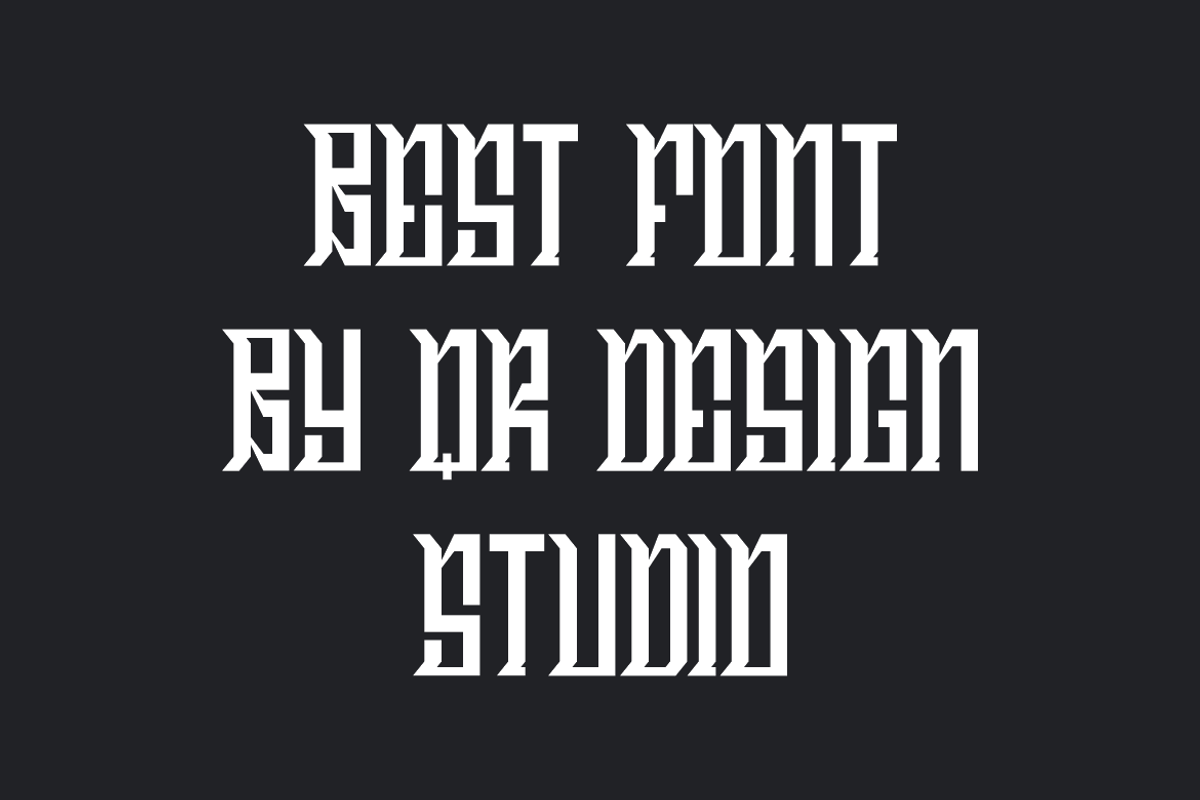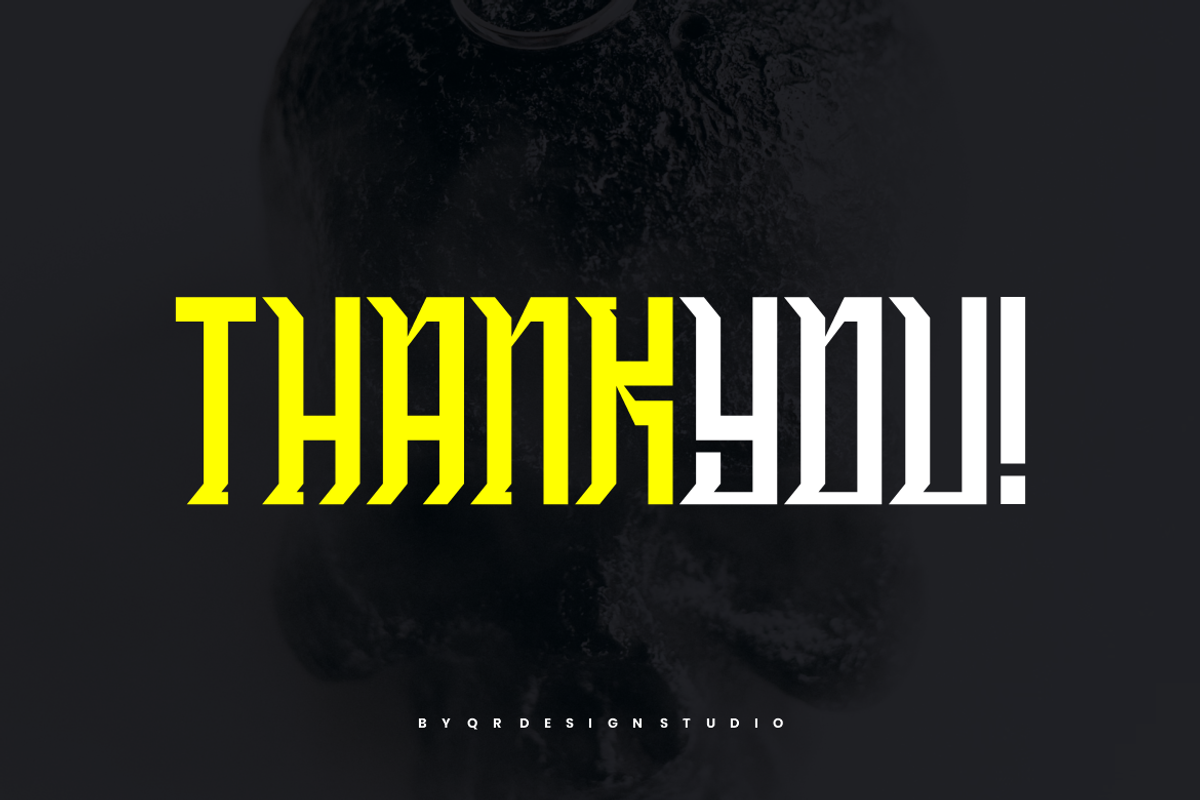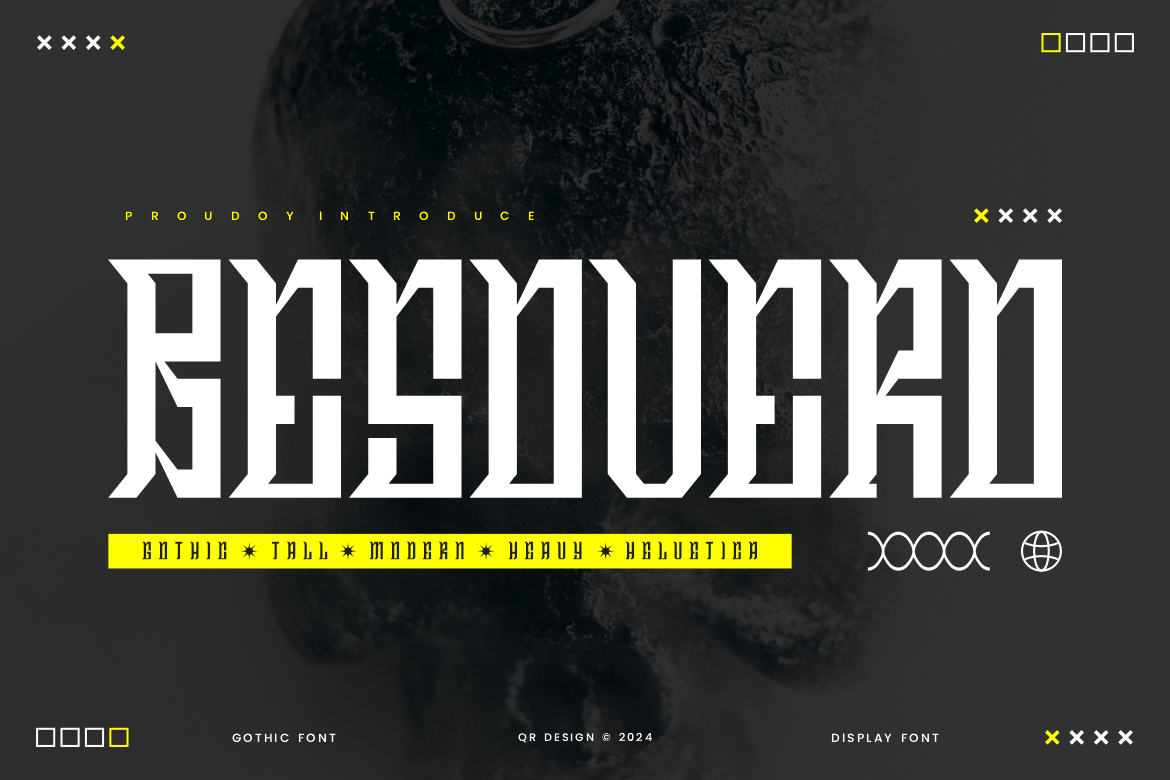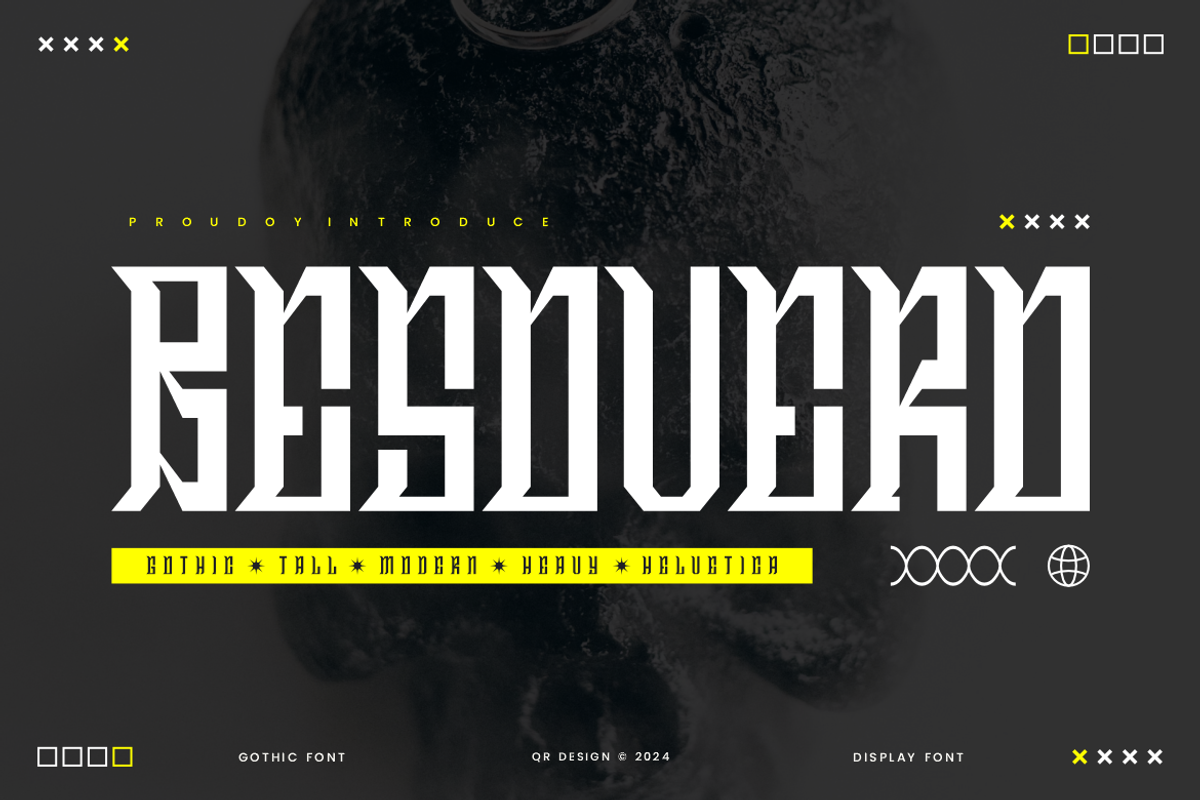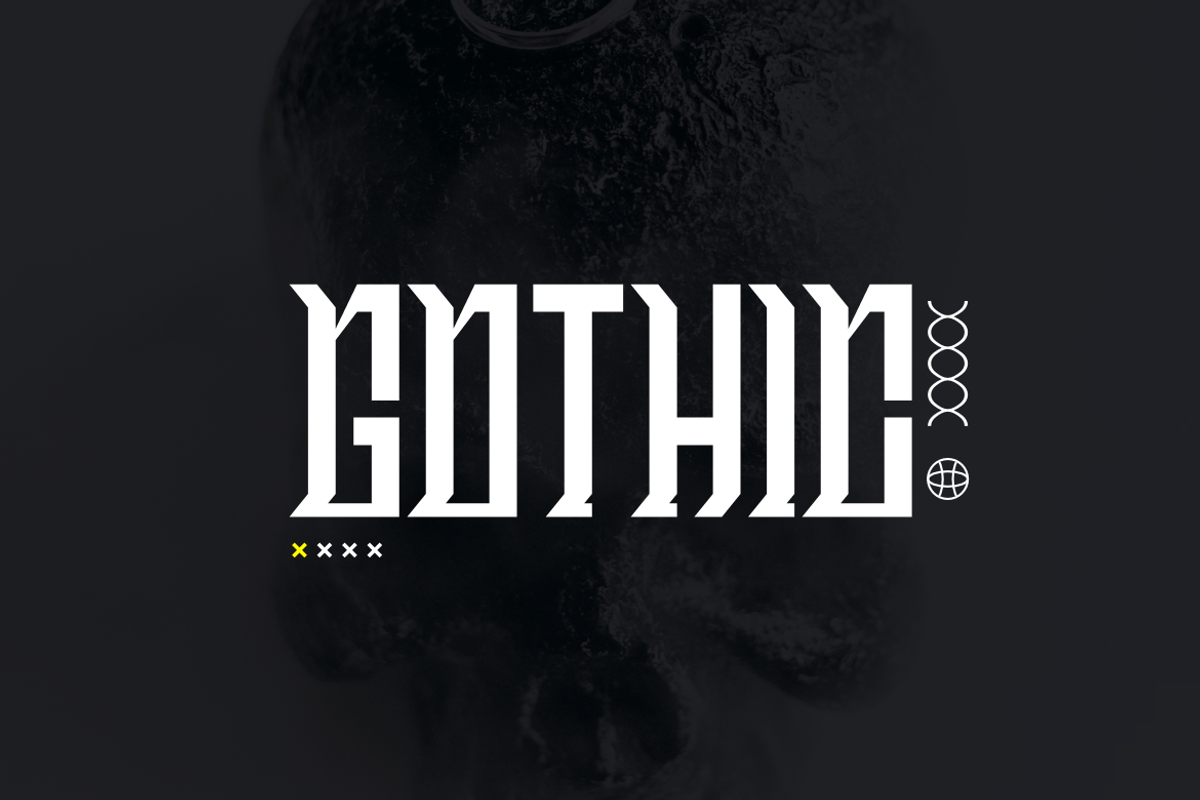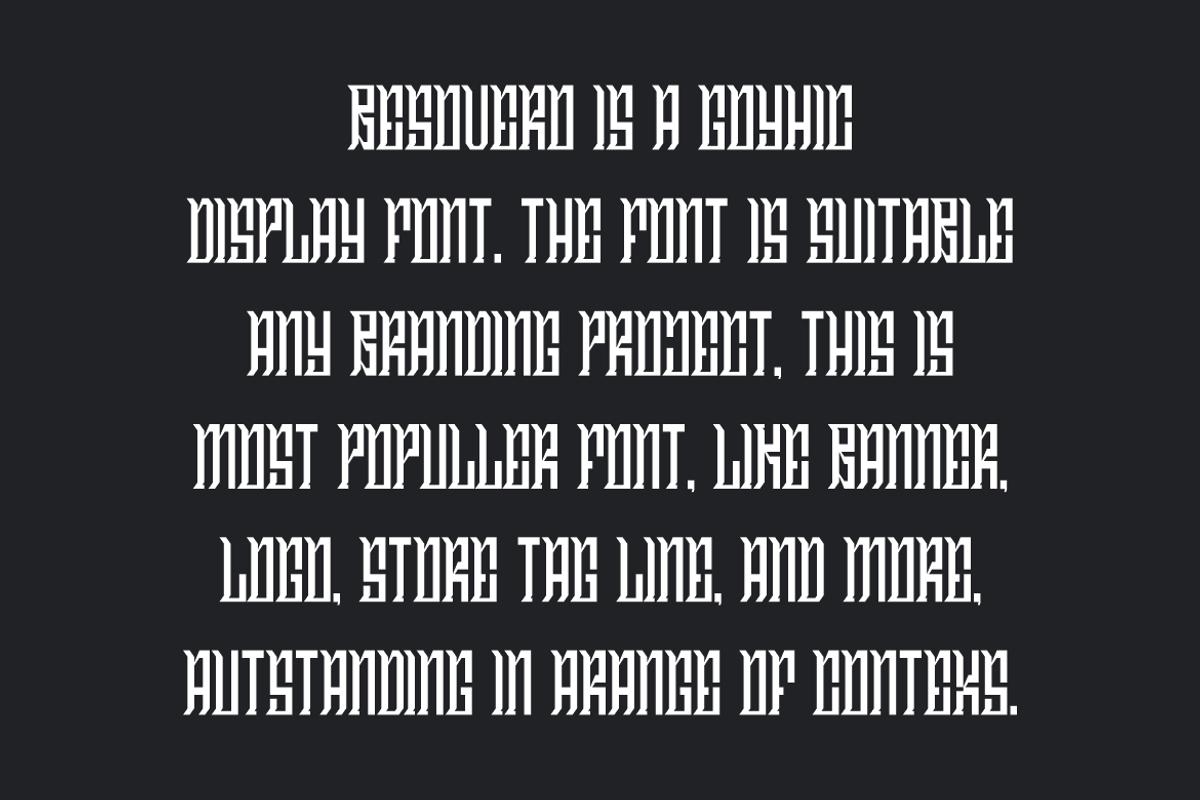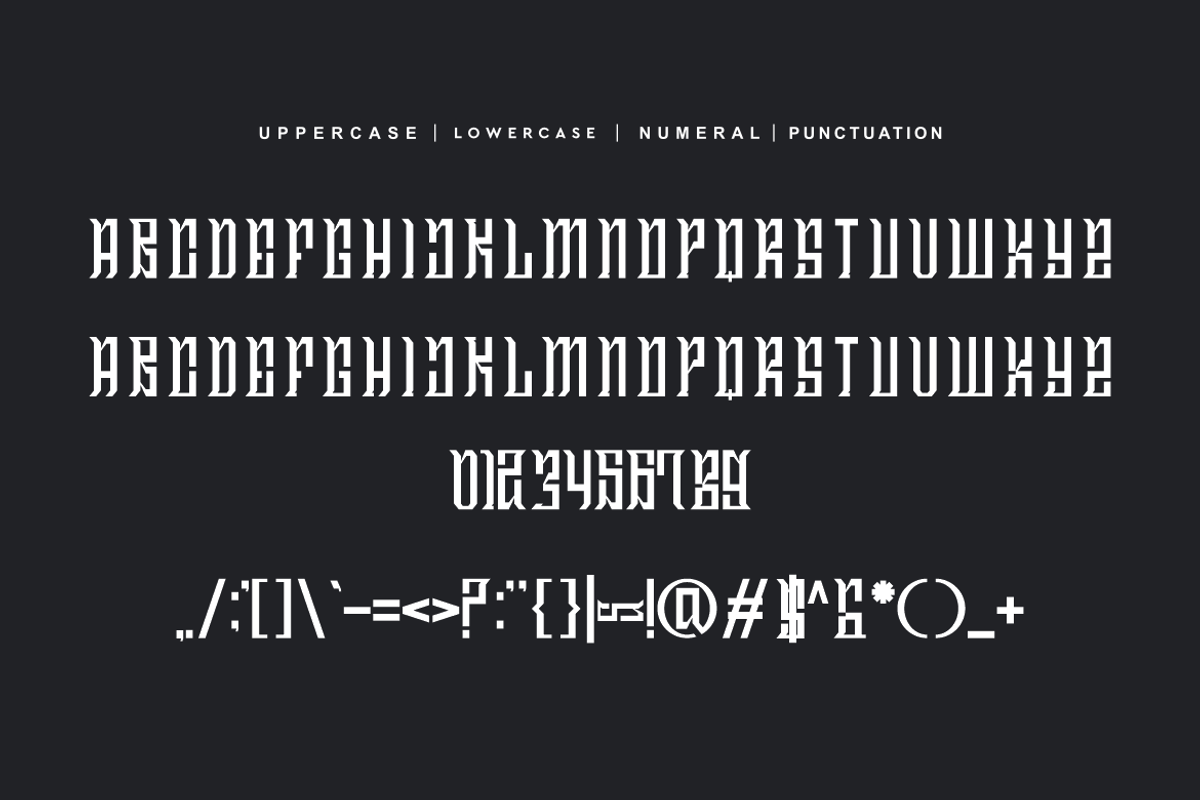
Besovero - Artdeco & Gothic Font
Besovero Font is a artdeco and authentic display font. The font is suitable for any branding project like poster, logo, gothic, and many more. Outstanding in a wide range of contexts.